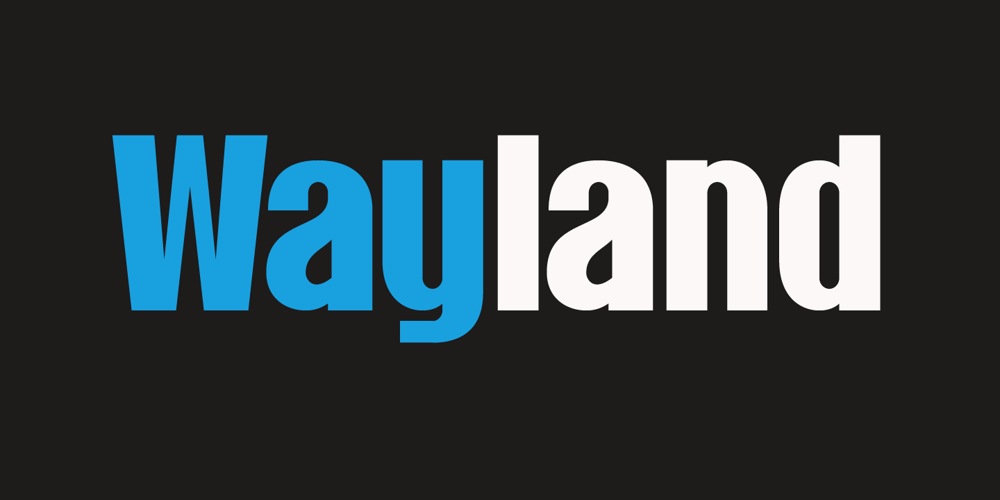
Wayland Font Family was designed by David Kerkhoff and published by Hanoded. Wayland contains 2 styles and family package options. Wayland (Vølund or Völundr) is the mythical blacksmith from Norse mythology. I chose this name, because Wayland is a bulky, sturdy display font. Wayland can be used for many types of design, but headlines, posters and book covers spring to mind. Comes with extensive language support.